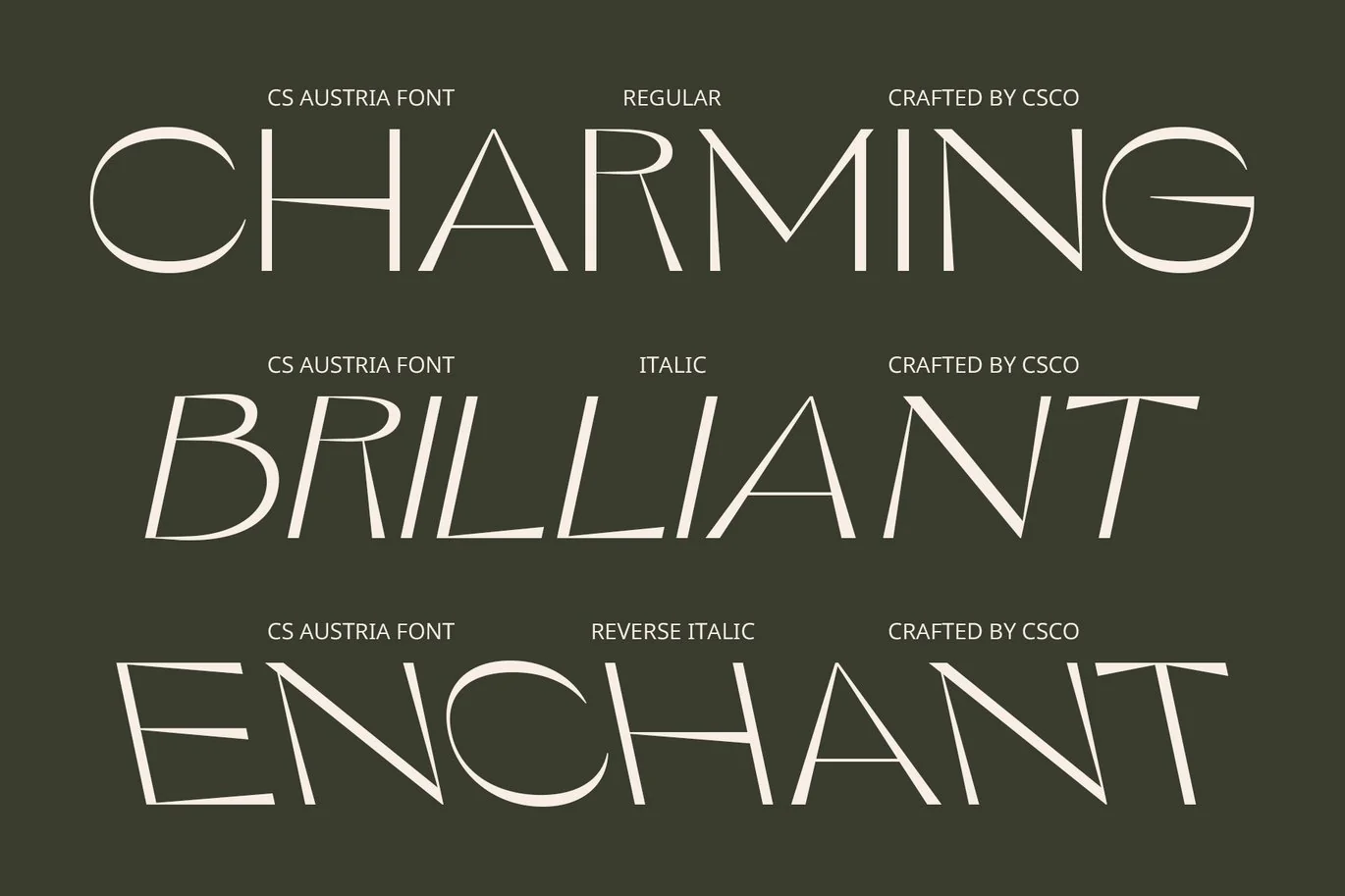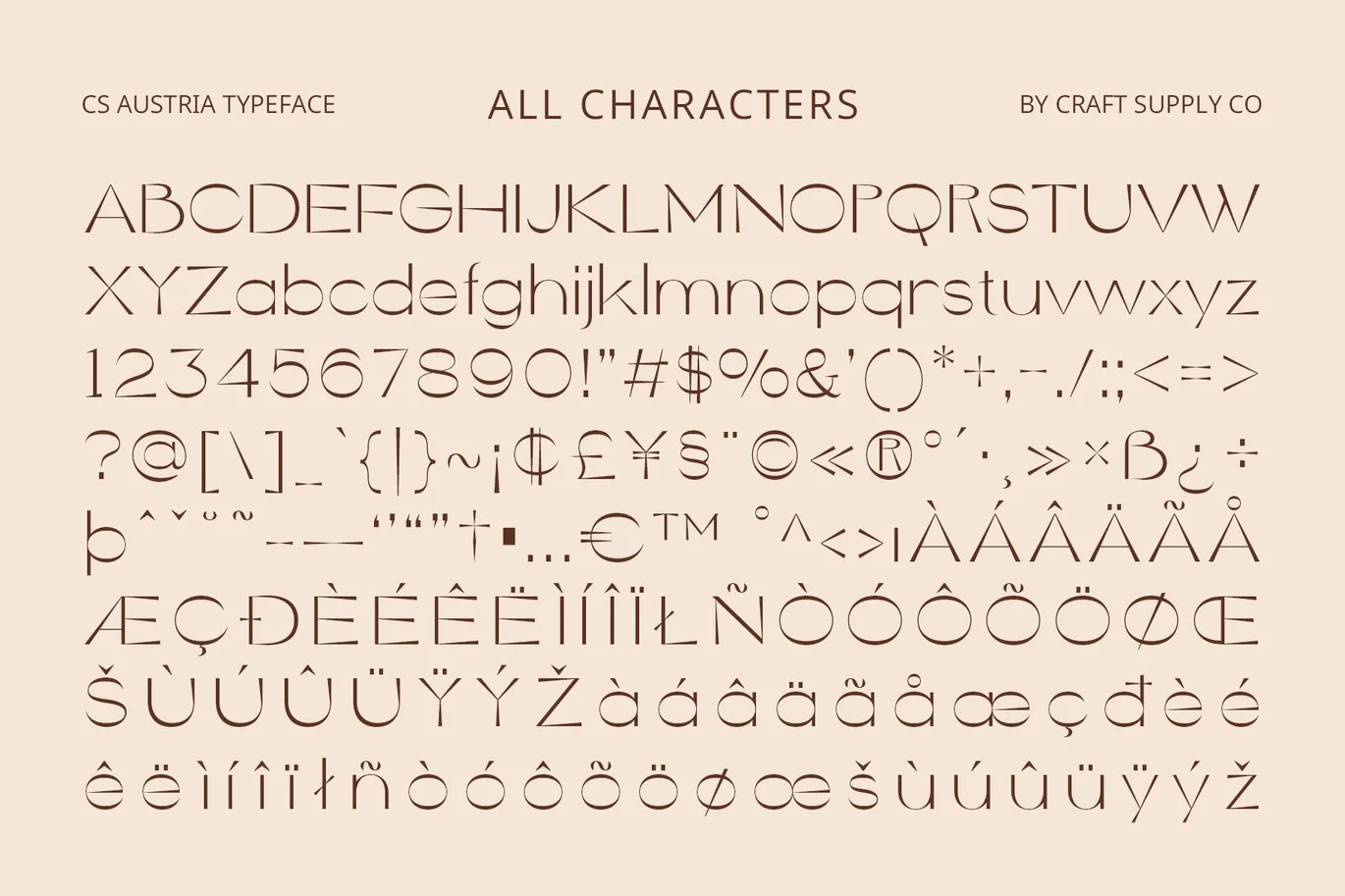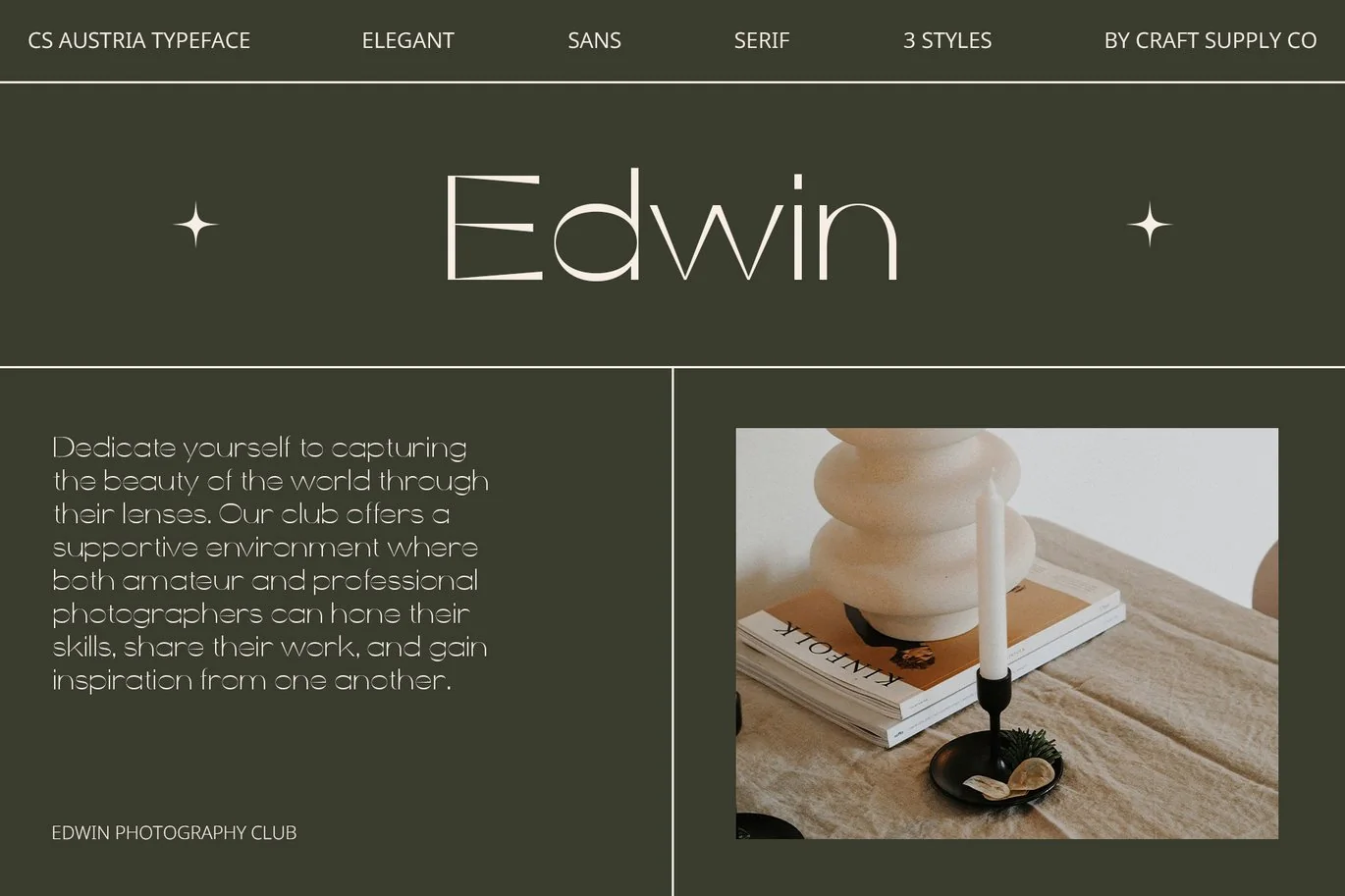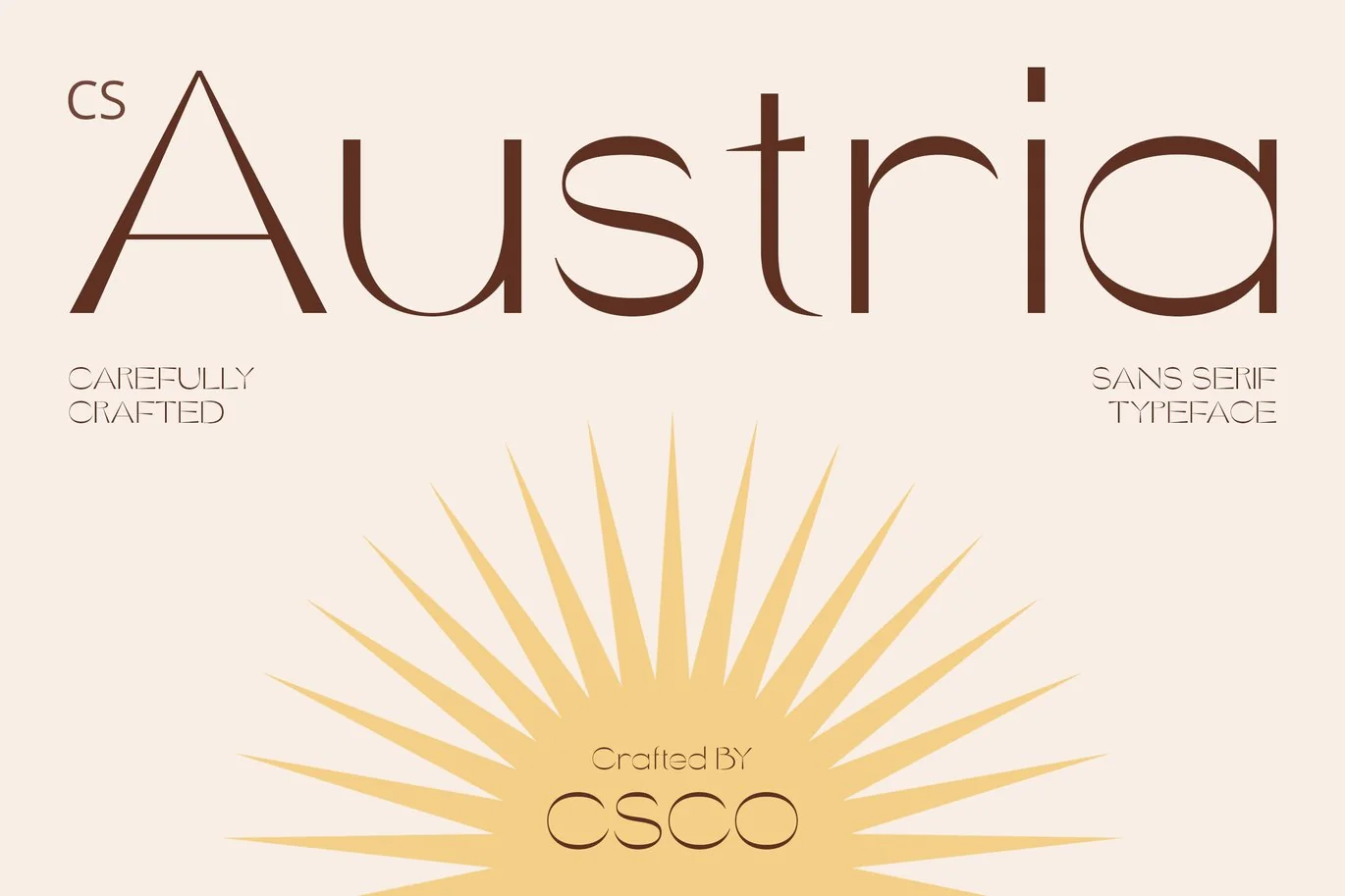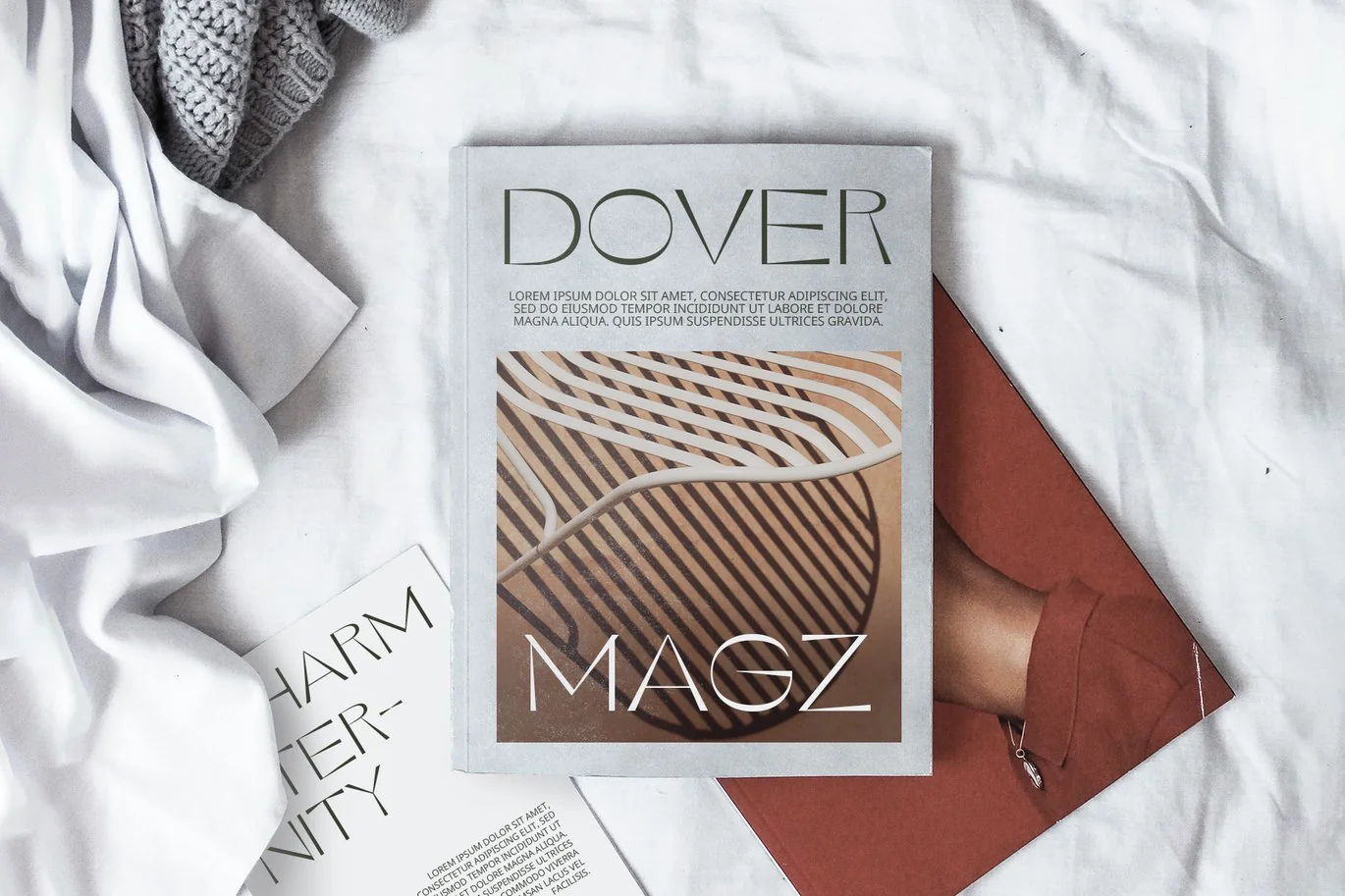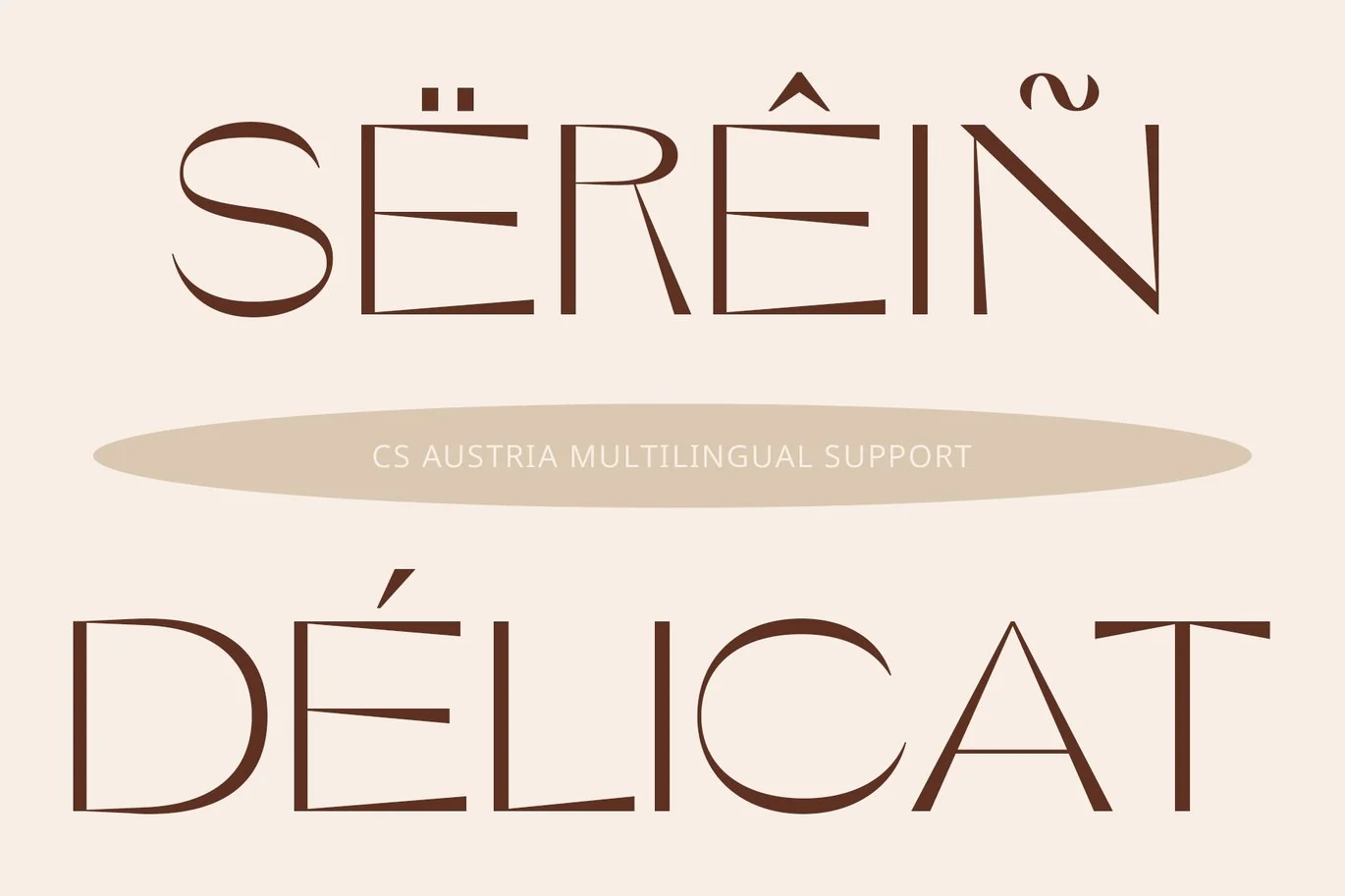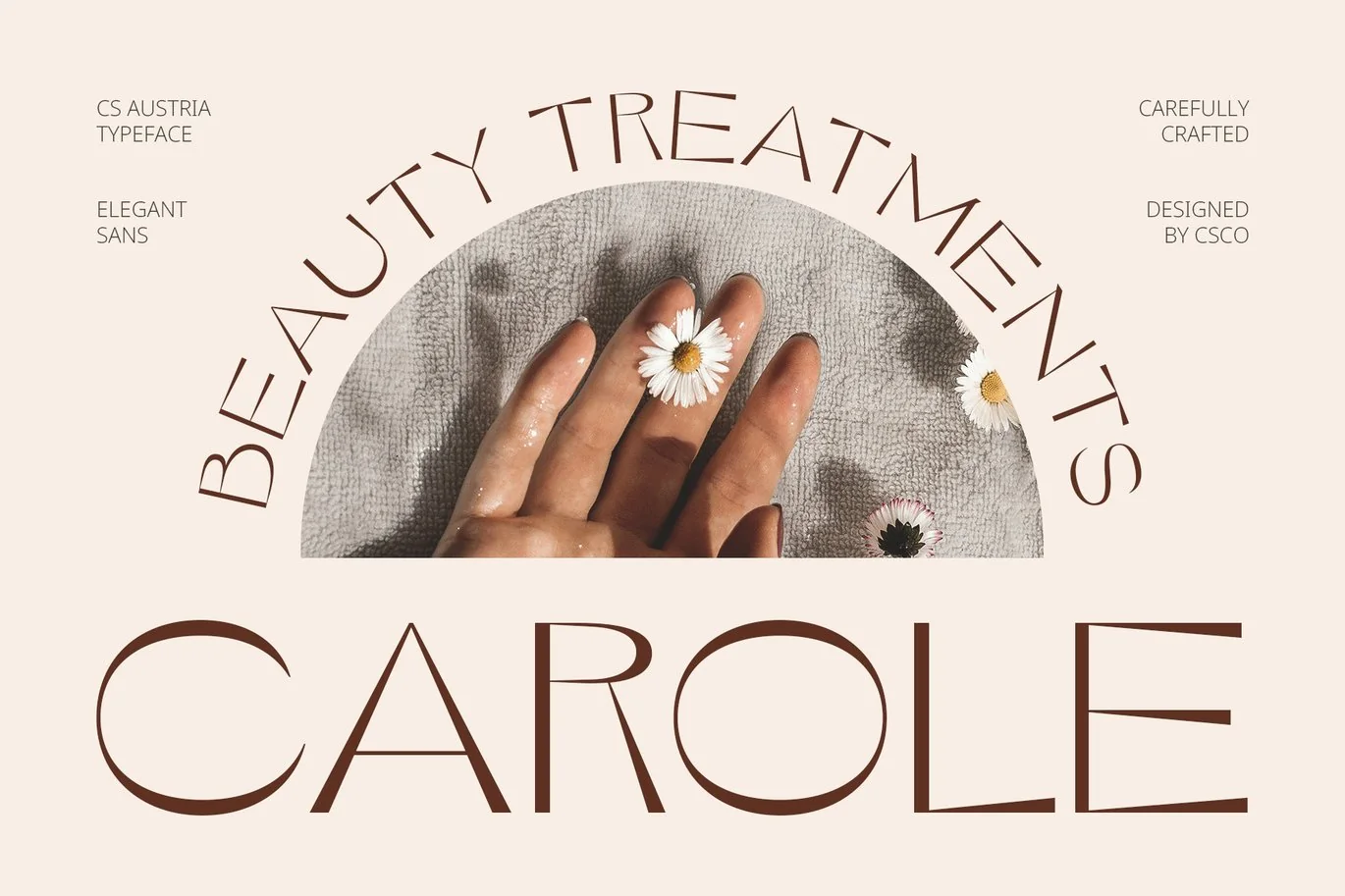
CS Austria – Elegant Font
CS Austria – Elegant Font: Sophisticated Simplicity with Modern Flair
Modern Sans-Serif Elegance
CS Austria is a modern sans-serif font known for its slim, minimalist design. Its clean and efficient style features thin lines and balanced proportions, providing an elegant and contemporary appearance with an emphasis on clarity.
Slim and Minimalist Design
Characterized by its thin, well-balanced letterforms, CS Austria embodies a sophisticated simplicity. The lack of excessive decoration enhances readability, making it ideal for applications where both elegance and functionality are key.
Uncompromising Readability and Style
CS Austria’s minimalist approach ensures that your text remains clear and accessible while presenting a refined, modern aesthetic. This font excels in delivering an understated elegance that’s perfect for branding, editorial, and web design.
Versatile for Sophisticated Applications
Whether used in branding, editorial layouts, or web design, CS Austria provides a professional, modern look that maintains simplicity. Its combination of elegant design and clear readability makes it a versatile choice for any project that values sophistication and contemporary style.